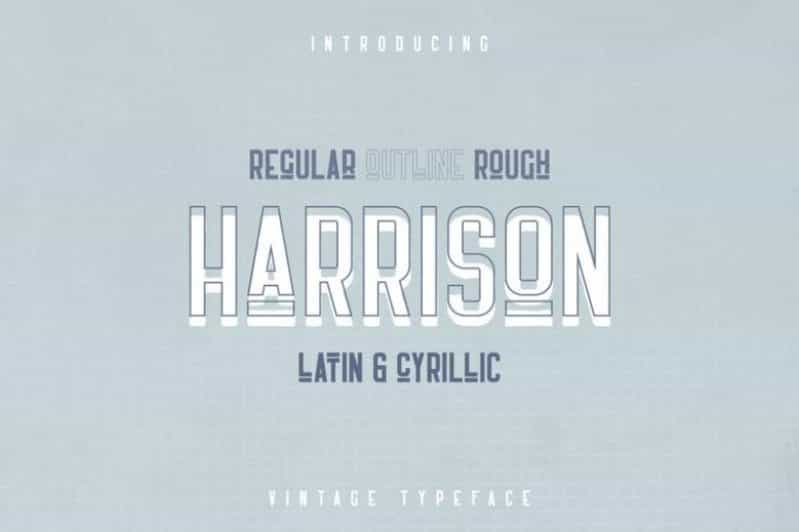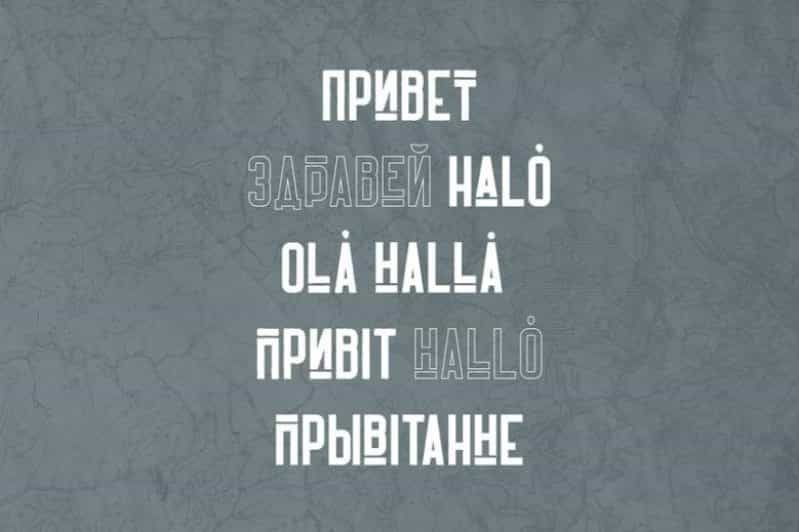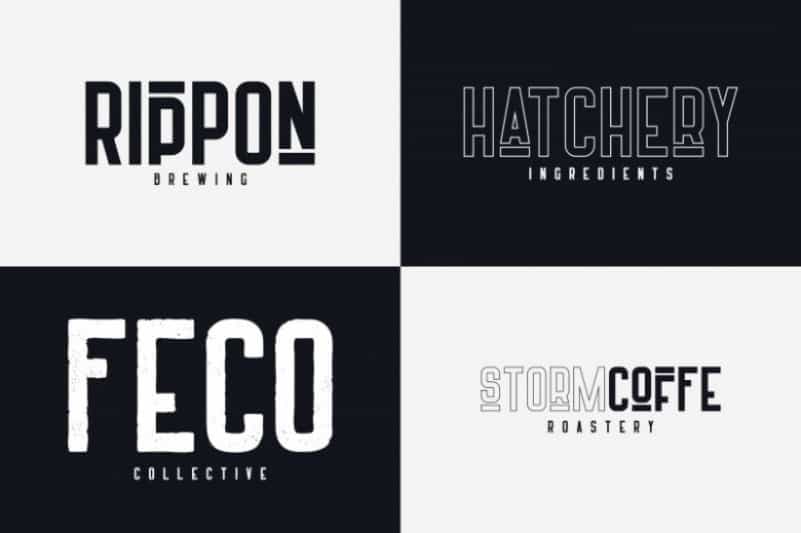
Harrison is a retro, bold typeface that has latin and Cyrillic support. It comes in regular, outline, rough versions and multilingual support. It’s a very flexible font that can be used in big and small sizes.